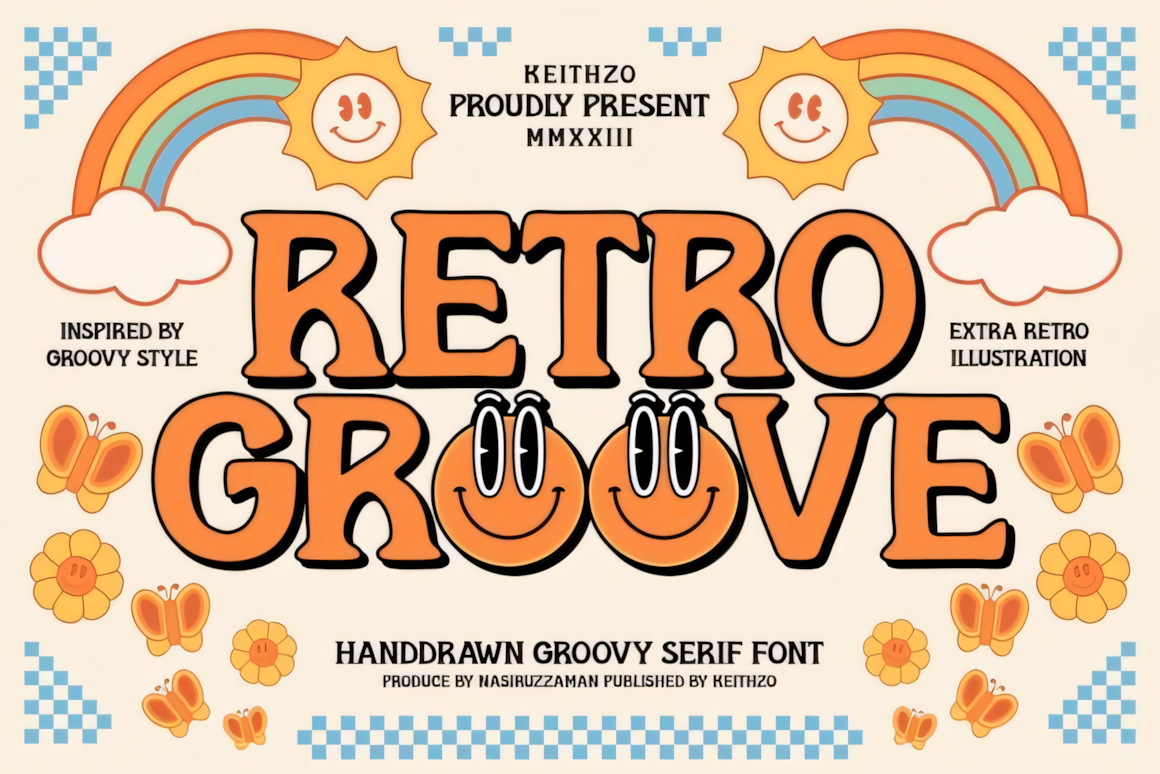
Retro Groove is a bold, funky display font that captures the vibrant energy of the 70s. With its playful, curvy letterforms, wavy lines, and dynamic angles, this font exudes movement and rhythm. Ideal for vintage-inspired designs, Retro Groove shines in posters, logos, and headlines, adding a touch of personality and flair to any project.
Retro Groove Serif Font